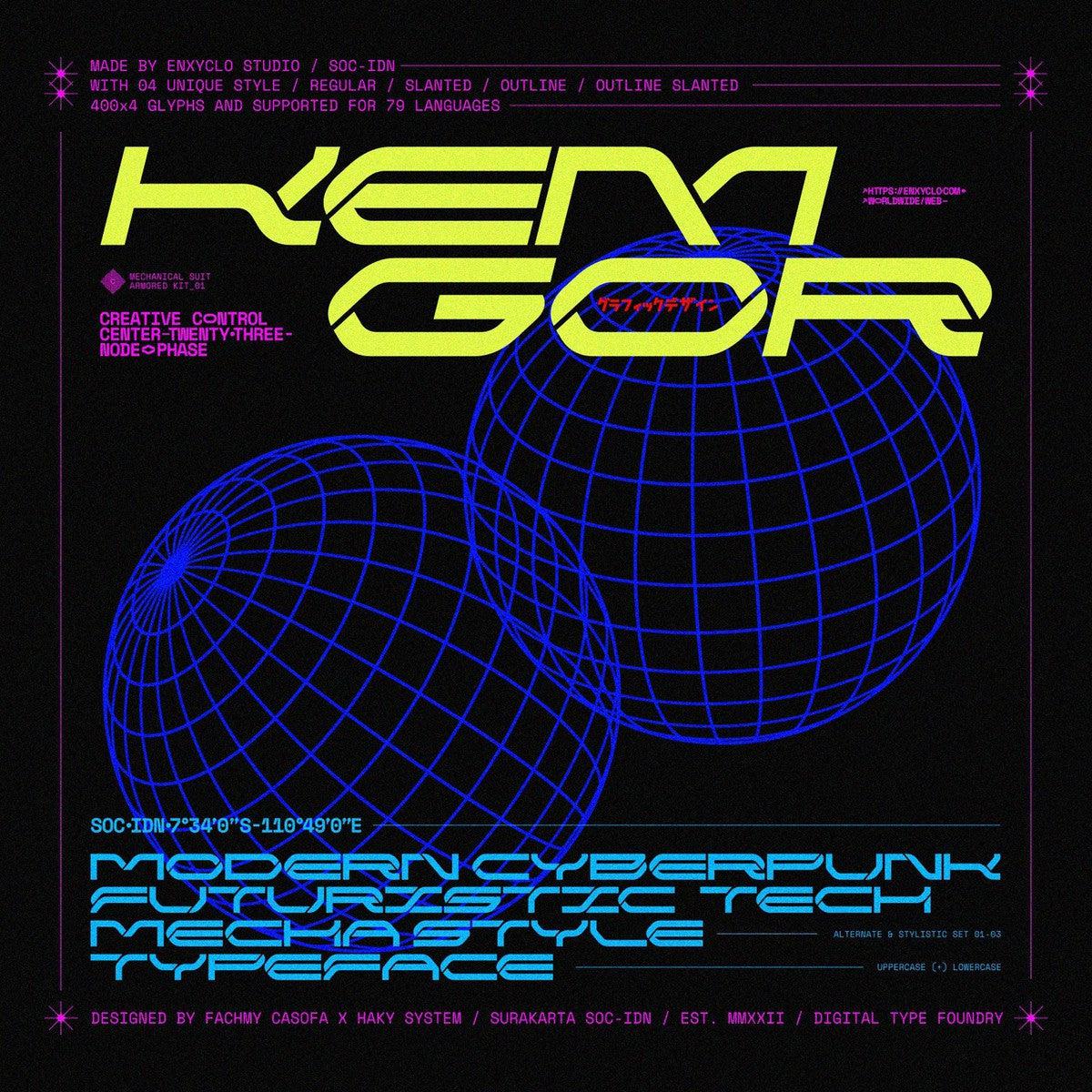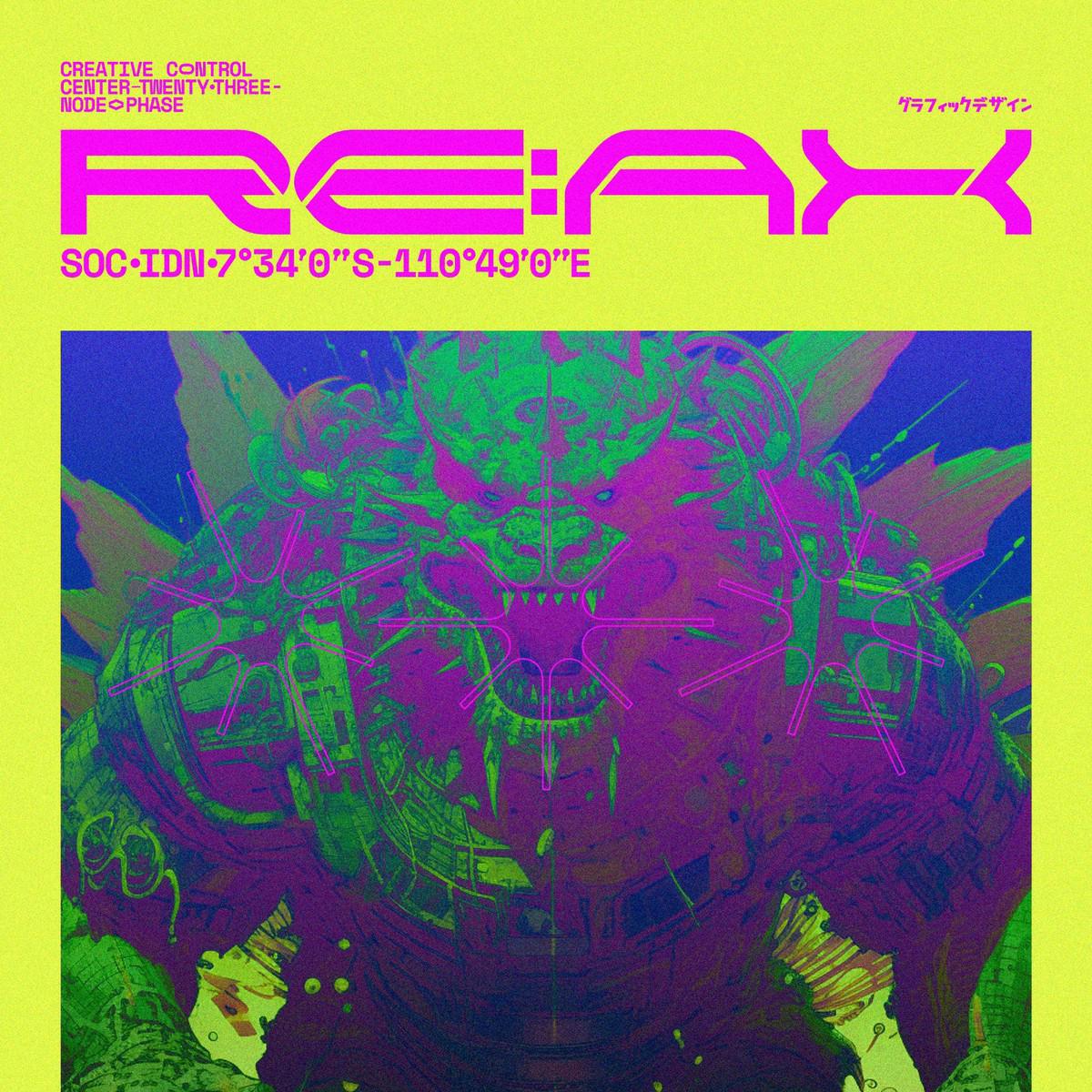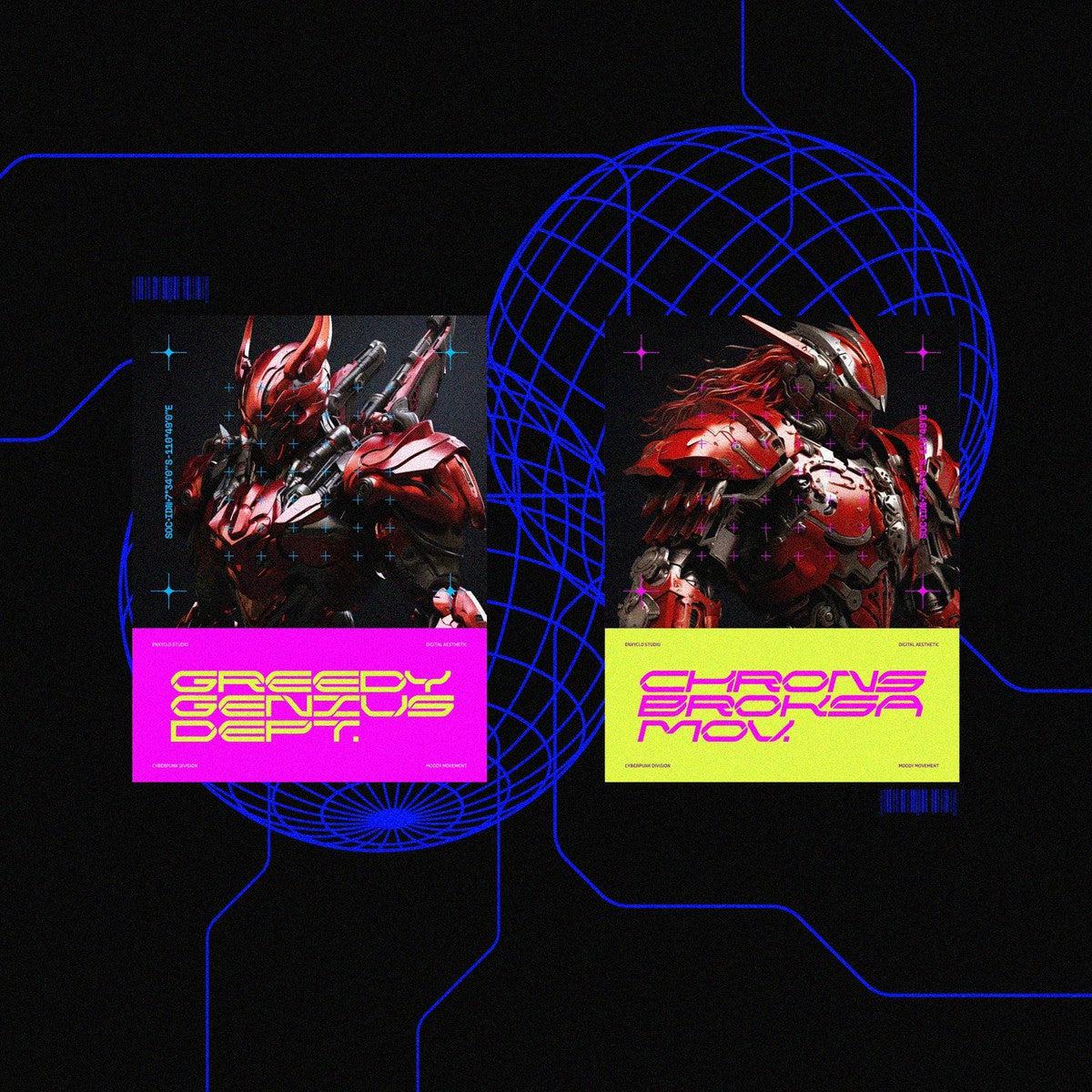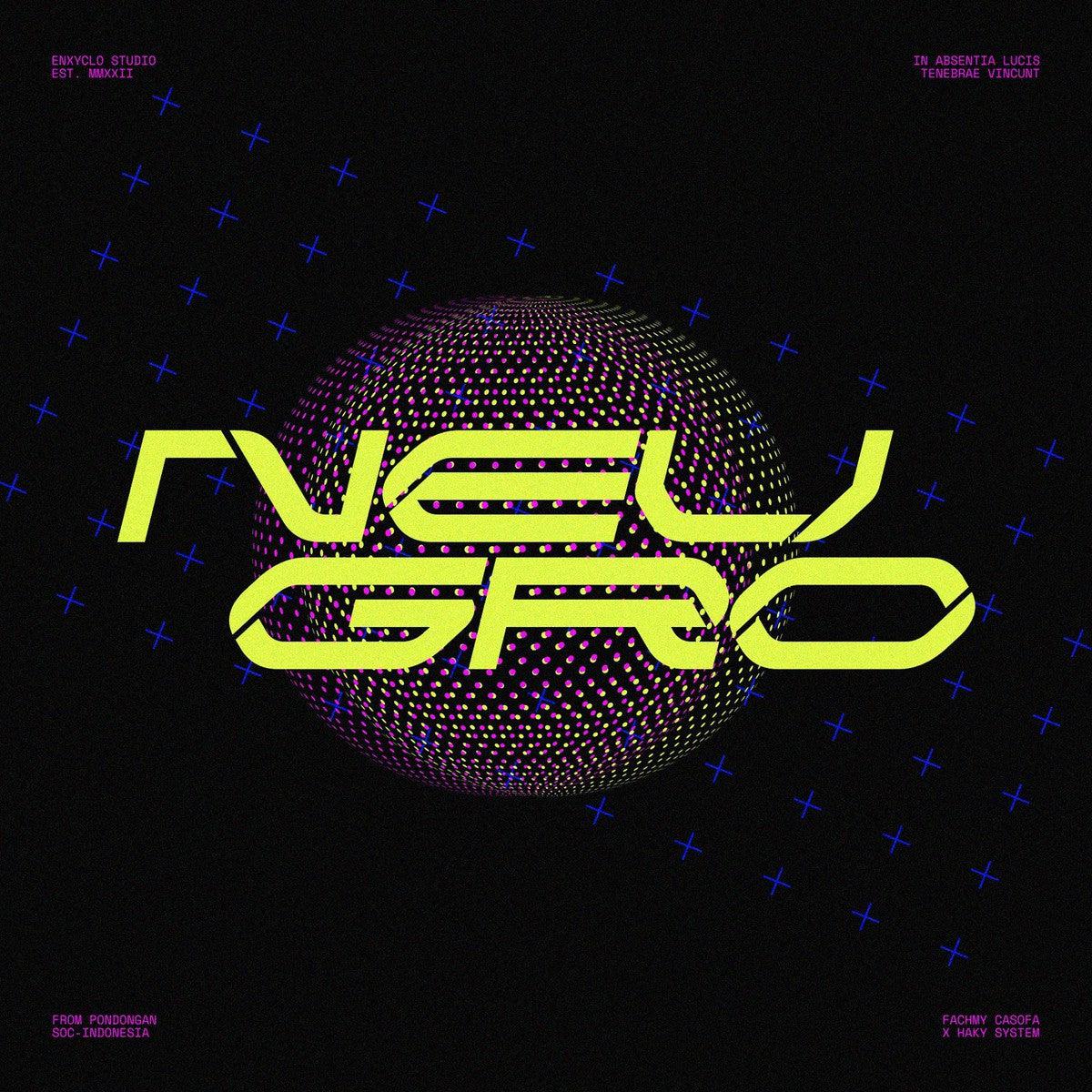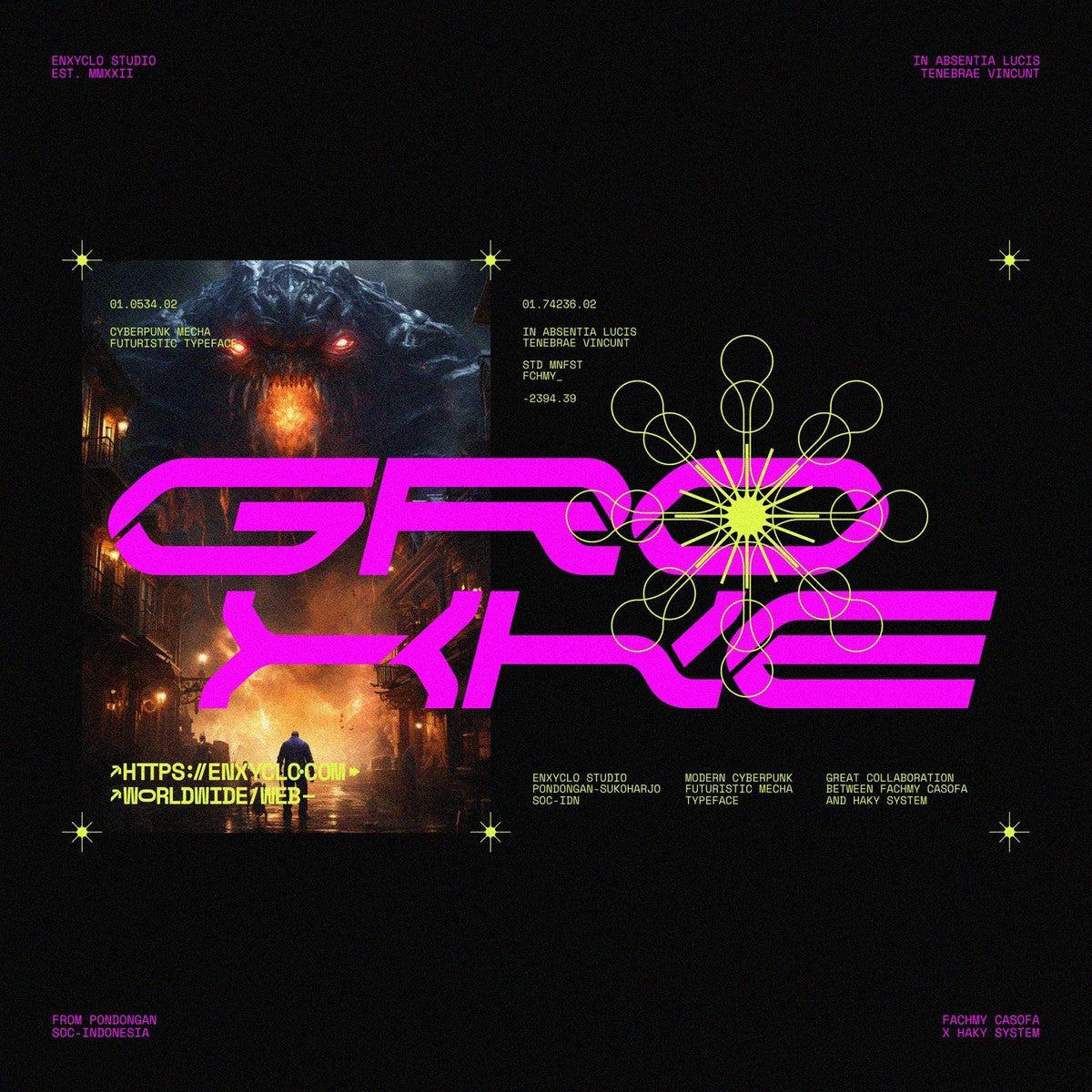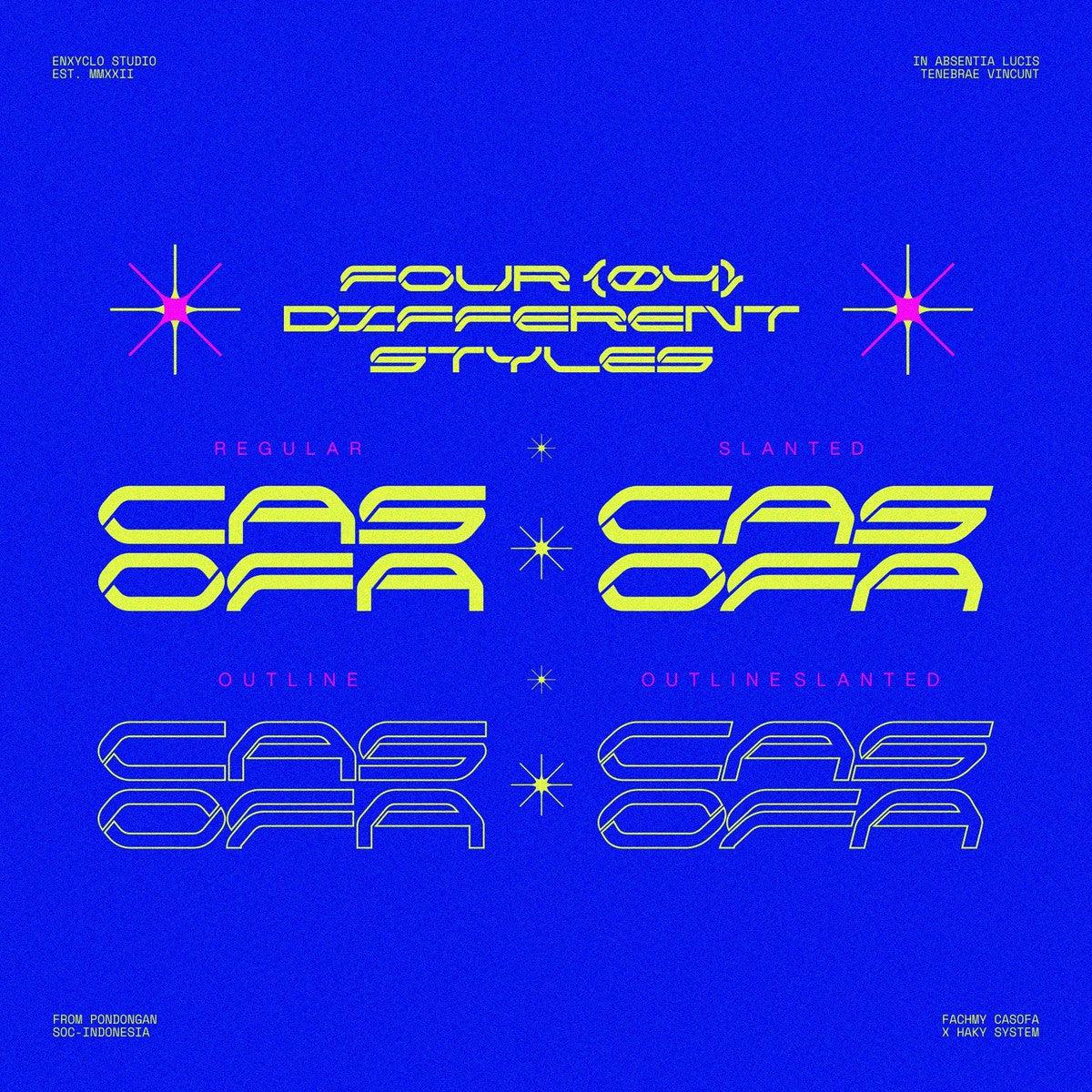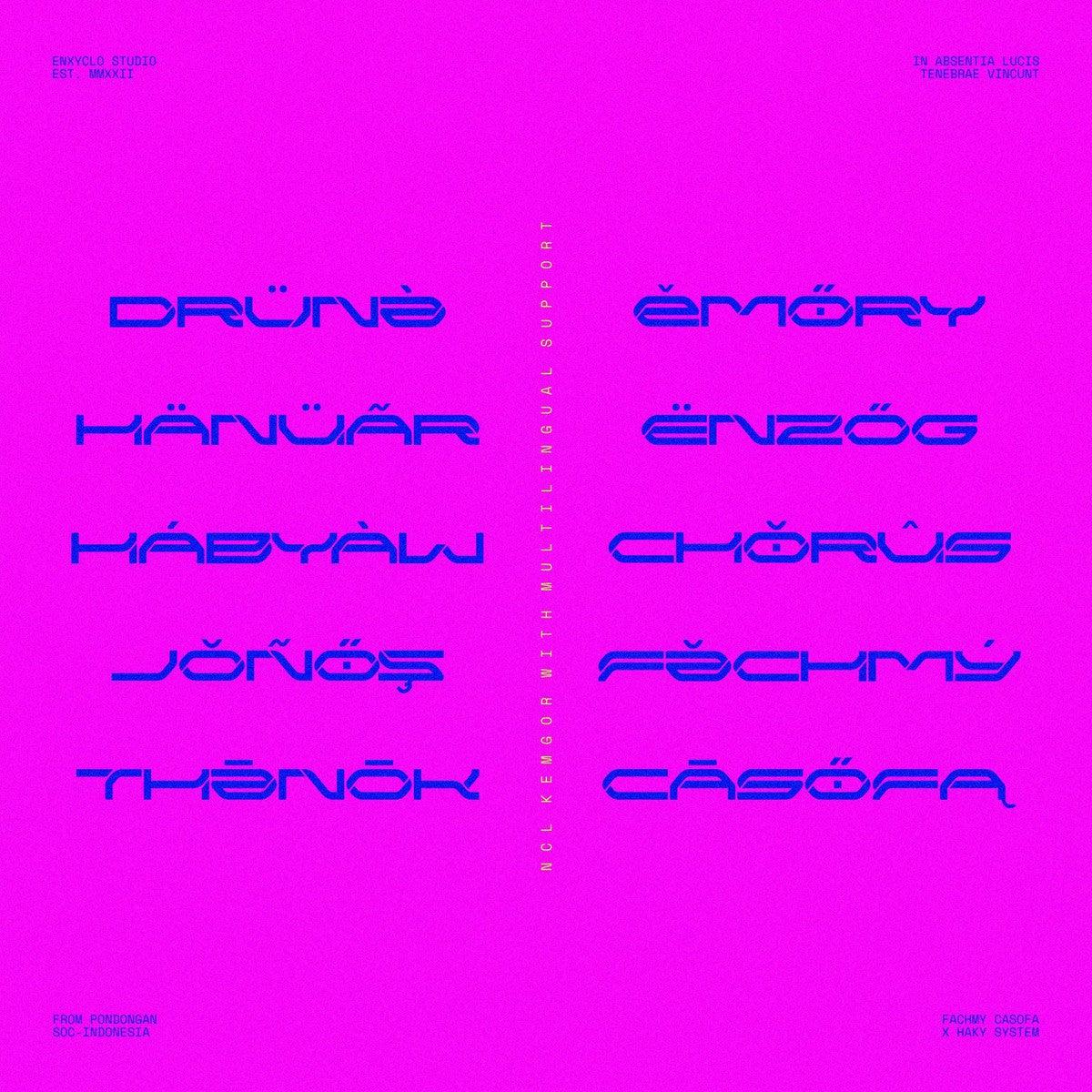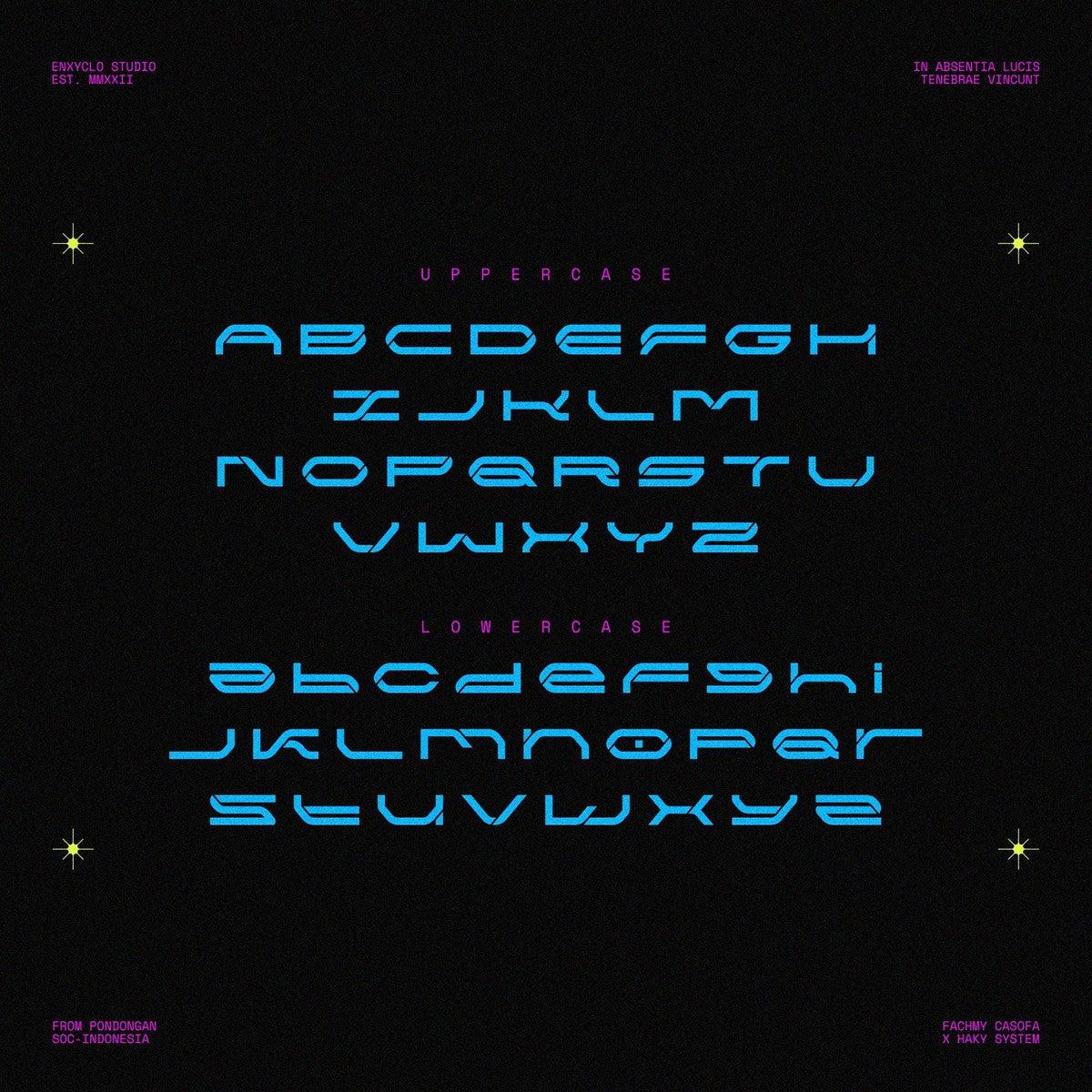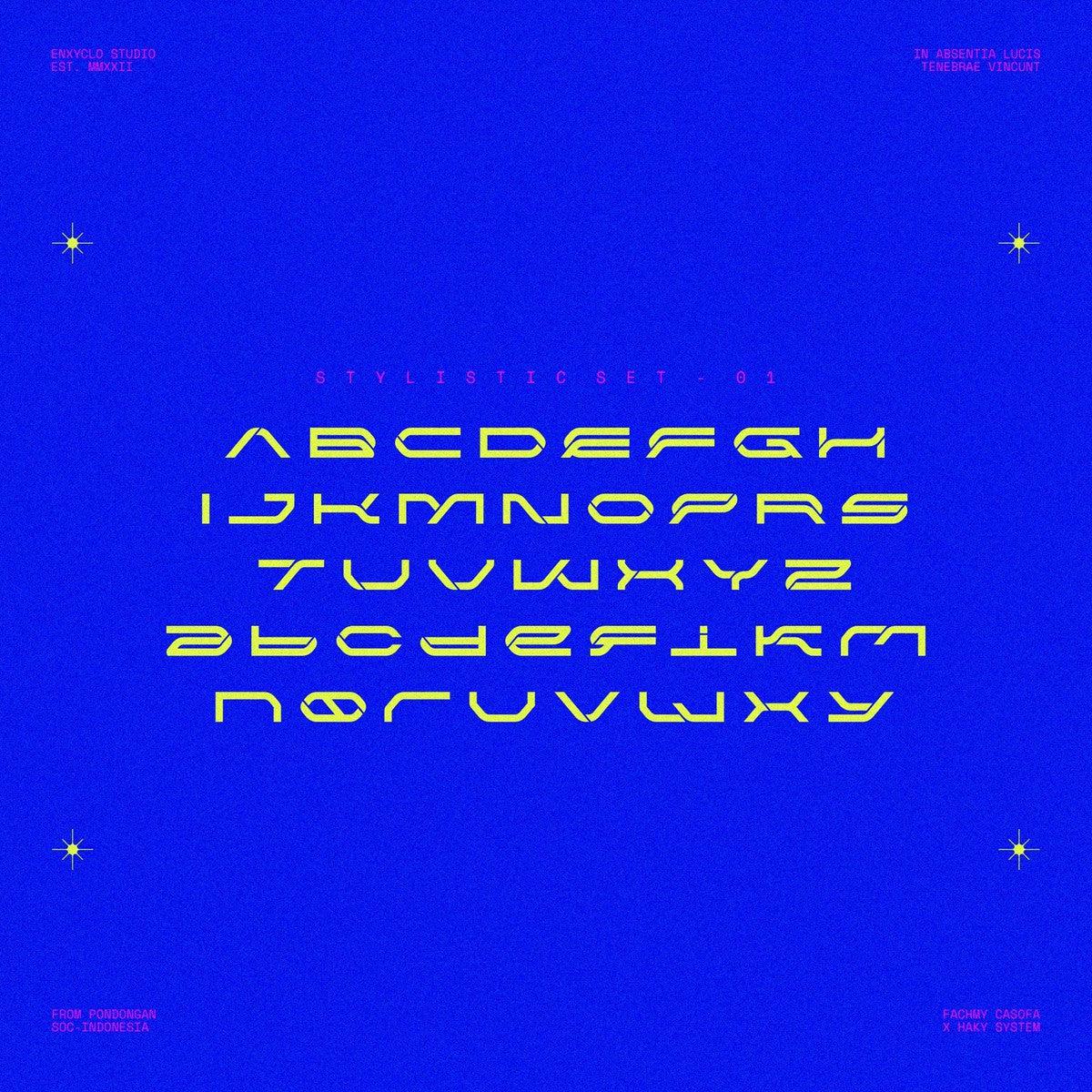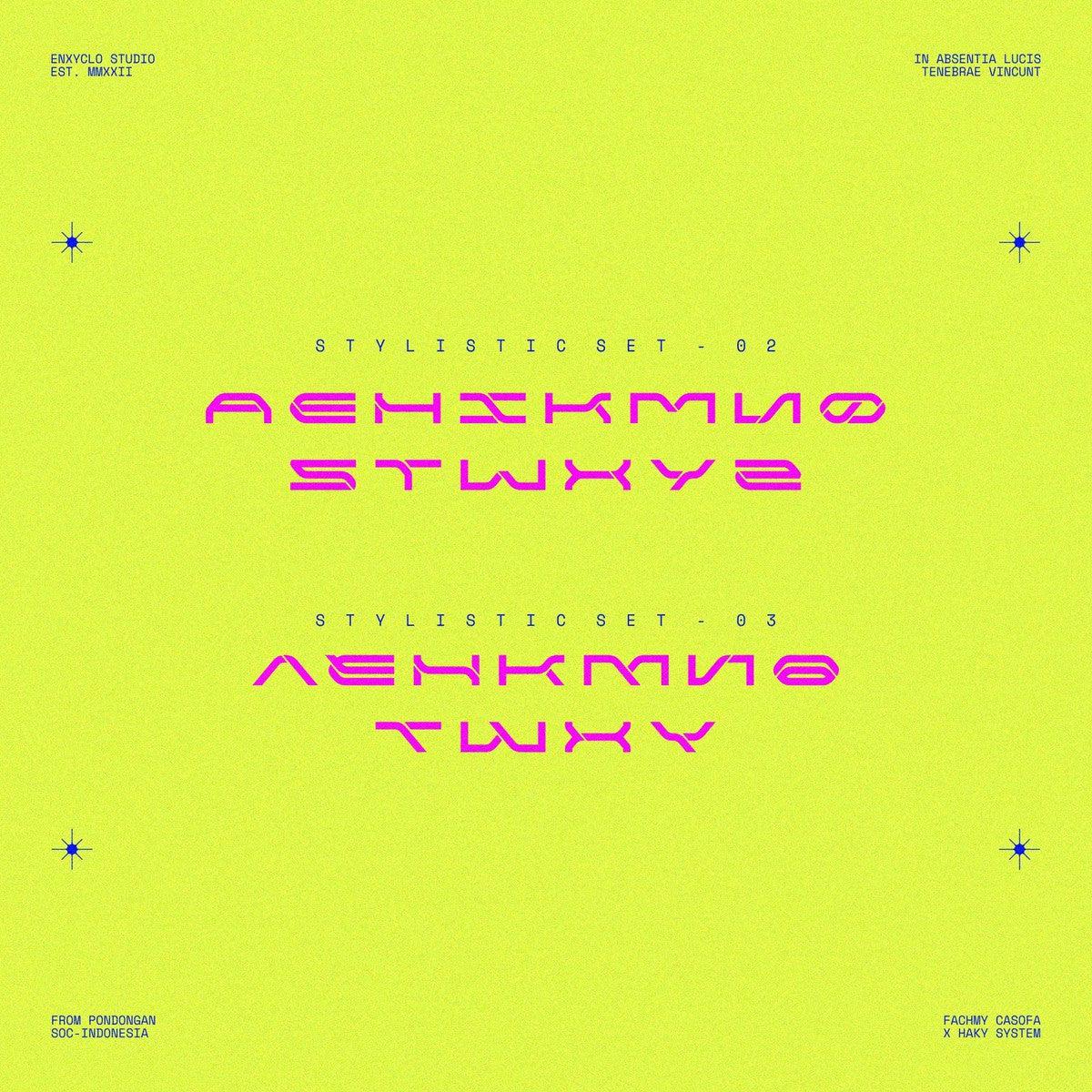
NCL KEMGOR - Police Cyberpunk
The NCL KEMGOR is a cyberpunk futuristic techno mecha font that includes four styles: Regular, Slanted, Outline, and Outline Slanted. It offers True Type Font (TTF), Open Type Font (OTF), and Web Open Font Format (WOFF1 & WOFF2), with 400 glyphs for each style and 800 glyphs in total. This font supports uppercase, lowercase, numerals, punctuation, symbols, and three stylistic sets. It also provides support
Ideal for futuristic and cyberpunk design projects. Perfect for website graphics, posters, branding, and album covers, ensuring a striking and innovative visual impact.